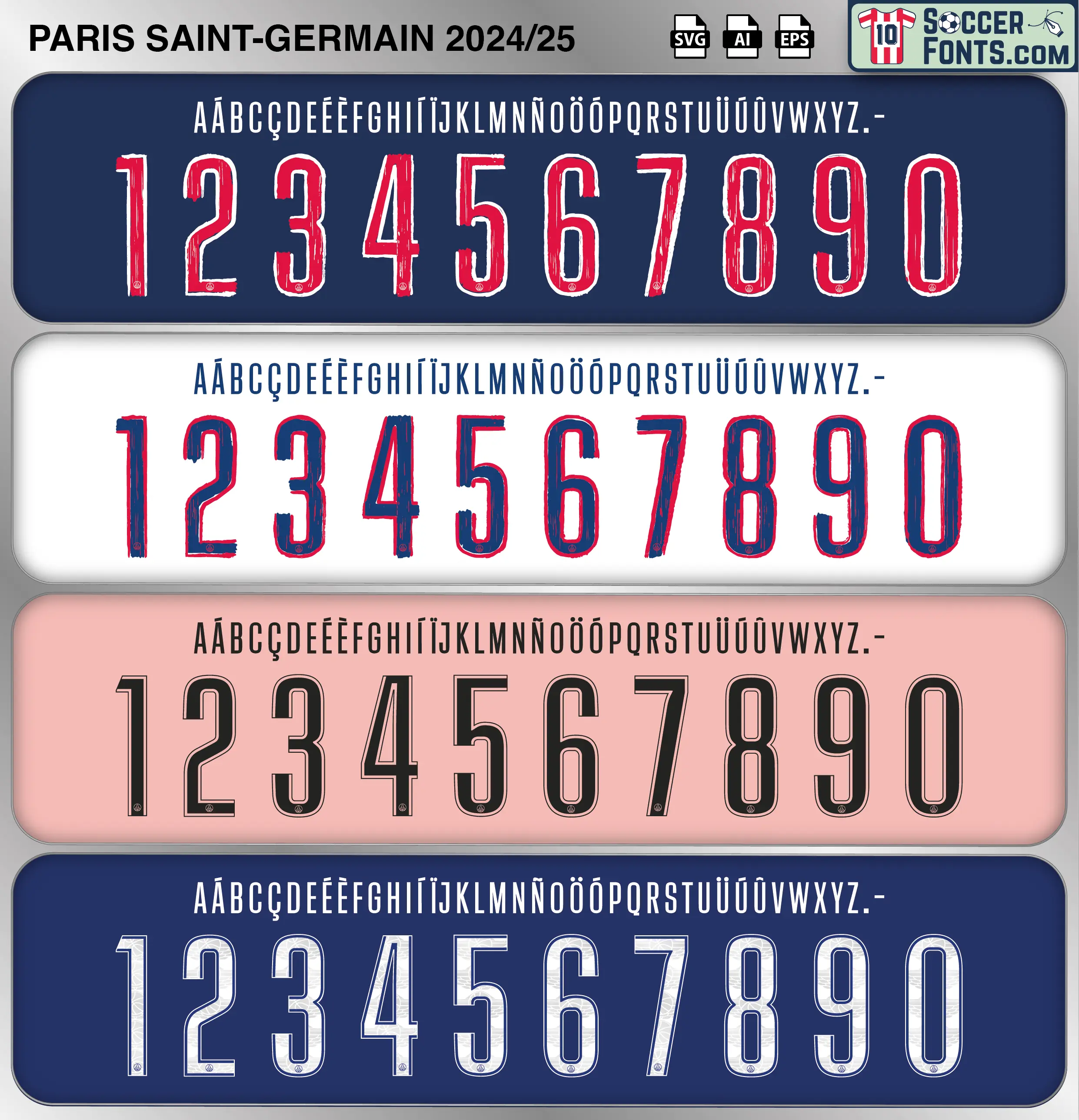
PSG 2024-25 Font
Download the PSG 2024-25 font, an editable soccer jersey lettering design in vector format inspired by the PSG kit style used during the 2024-25 football season. This football font artwork is prepared for football shirt recreations, custom jersey projects, football kit mockups and sports graphic design workflows.
The 2024-25 season became the greatest European campaign in Paris Saint-Germain history, with Luis Enrique leading a young and dynamic squad to the club’s first UEFA Champions League title. Following Kylian Mbappé’s departure, PSG developed around players including Ousmane Dembélé, Vitinha, Achraf Hakimi, Khvicha Kvaratskhelia, Désiré Doué, Bradley Barcola, João Neves and captain Marquinhos. The PSG 2024-25 font is connected here specifically with the lettering used during the club’s UEFA Champions League campaign, an era that transformed the identity and European legacy of Paris Saint-Germain.
PSG’s path through the Champions League produced a succession of memorable nights. After progressing from the league phase, the Parisians eliminated Brest before overcoming Liverpool, Aston Villa and Arsenal on their route to the final in Munich. There, PSG defeated Inter Milan 5-0, with Doué delivering a historic performance as the club finally lifted the trophy that had defined its ambitions for more than a decade. The PSG 2024-25 font therefore belongs to shirts associated with the most important European achievement in the club’s history. It also represents a season in which Dembélé emerged as a central attacking figure and Luis Enrique’s collective approach established PSG among Europe’s elite. For shirt collectors and supporters recreating Champions League jerseys from this landmark campaign, the PSG 2024-25 font connects directly with the players, matches and European football culture surrounding the club’s breakthrough season.